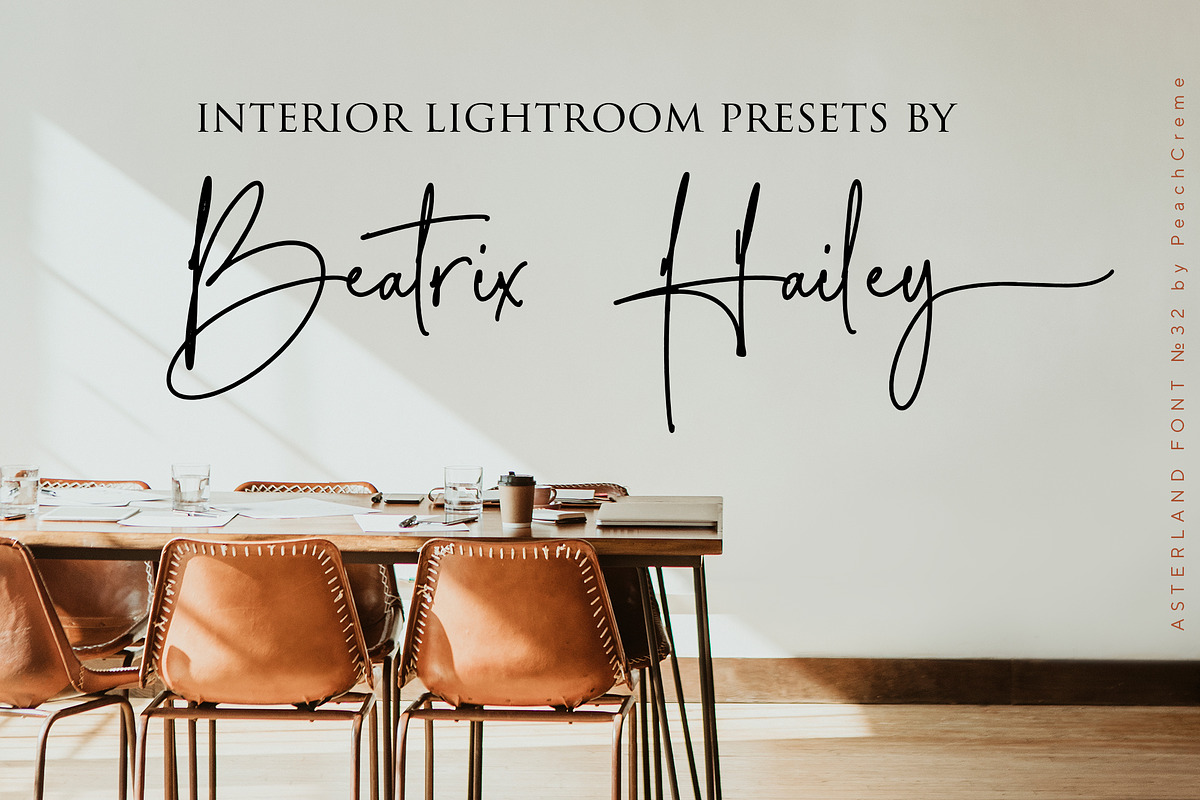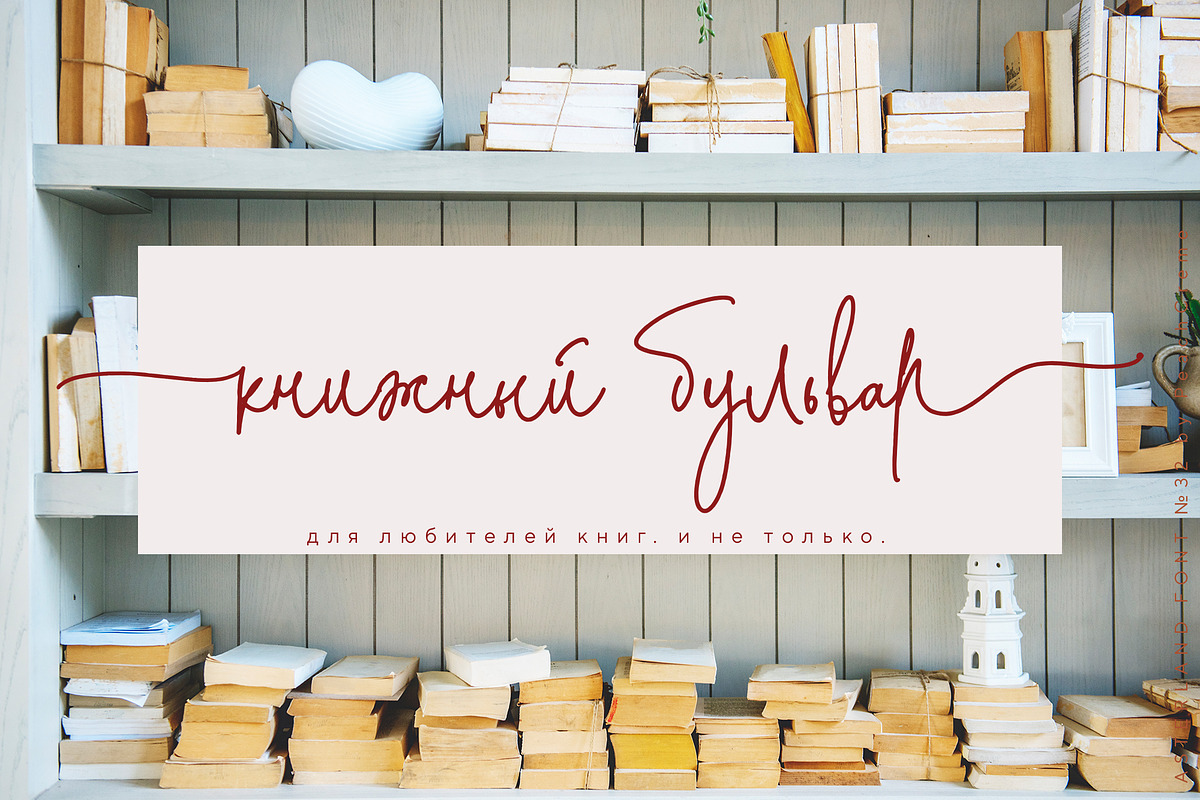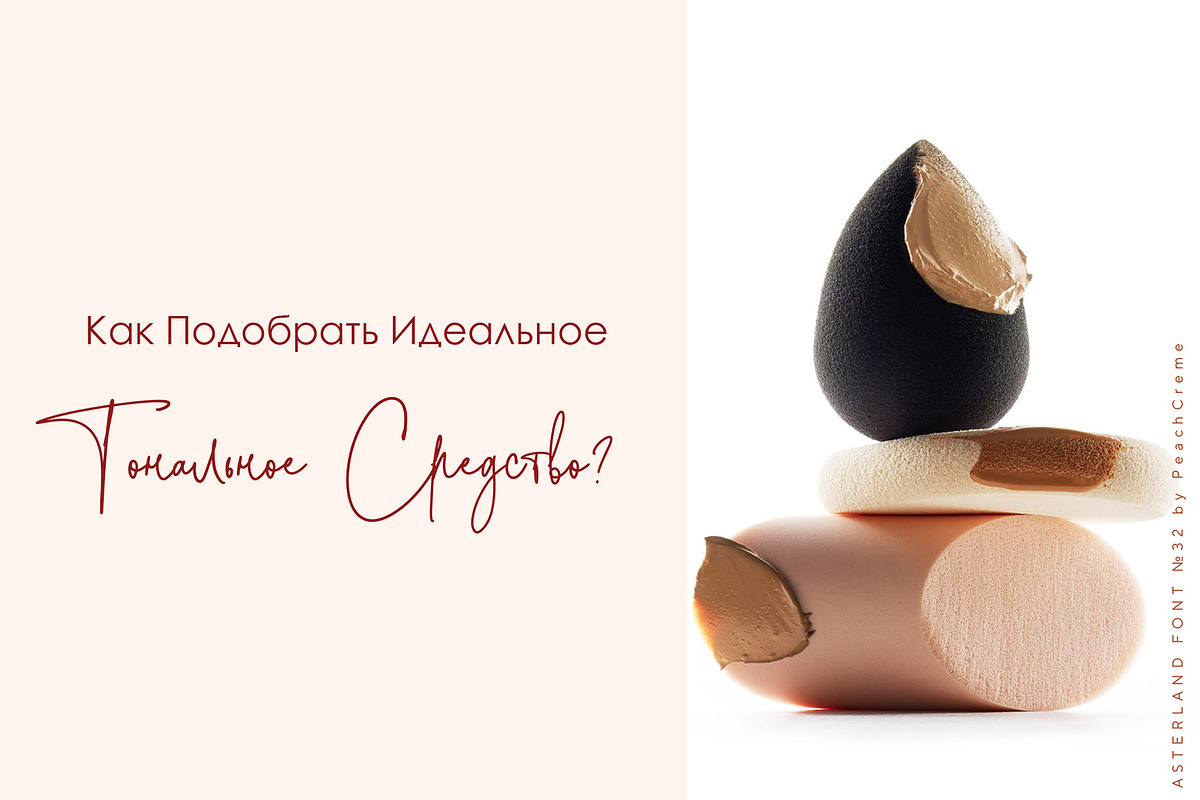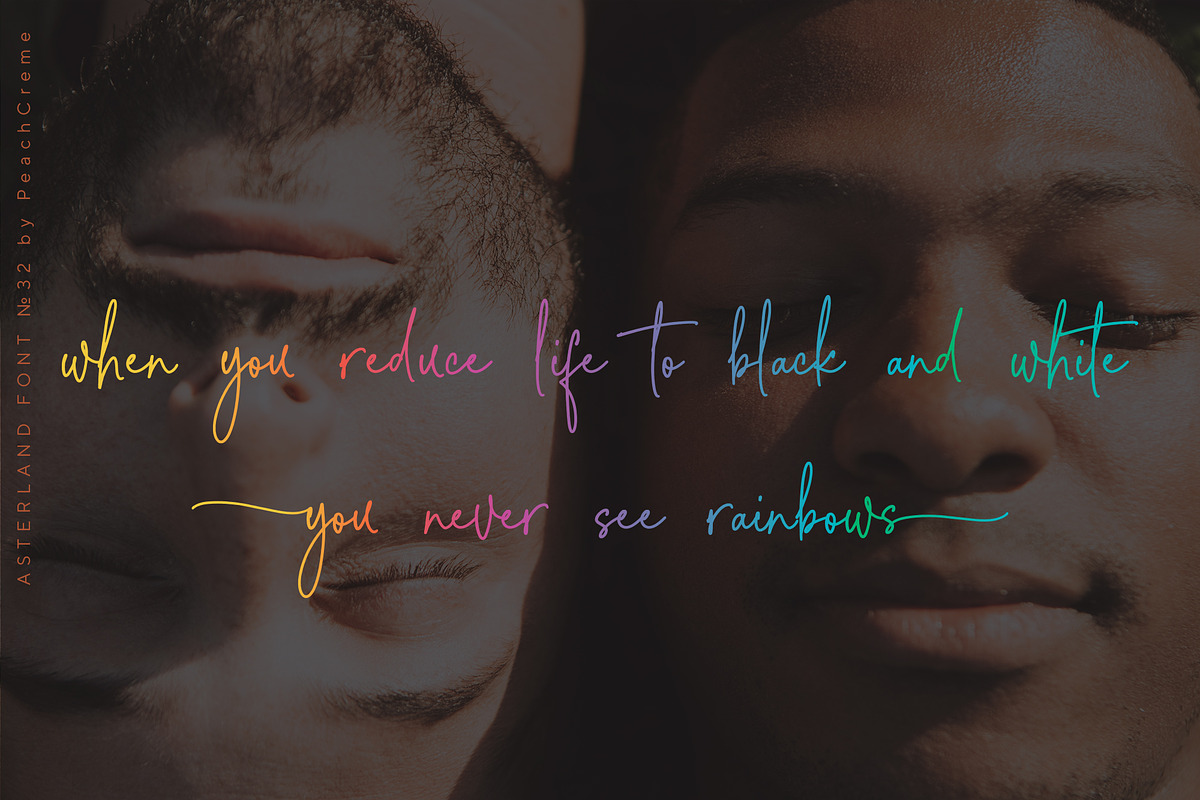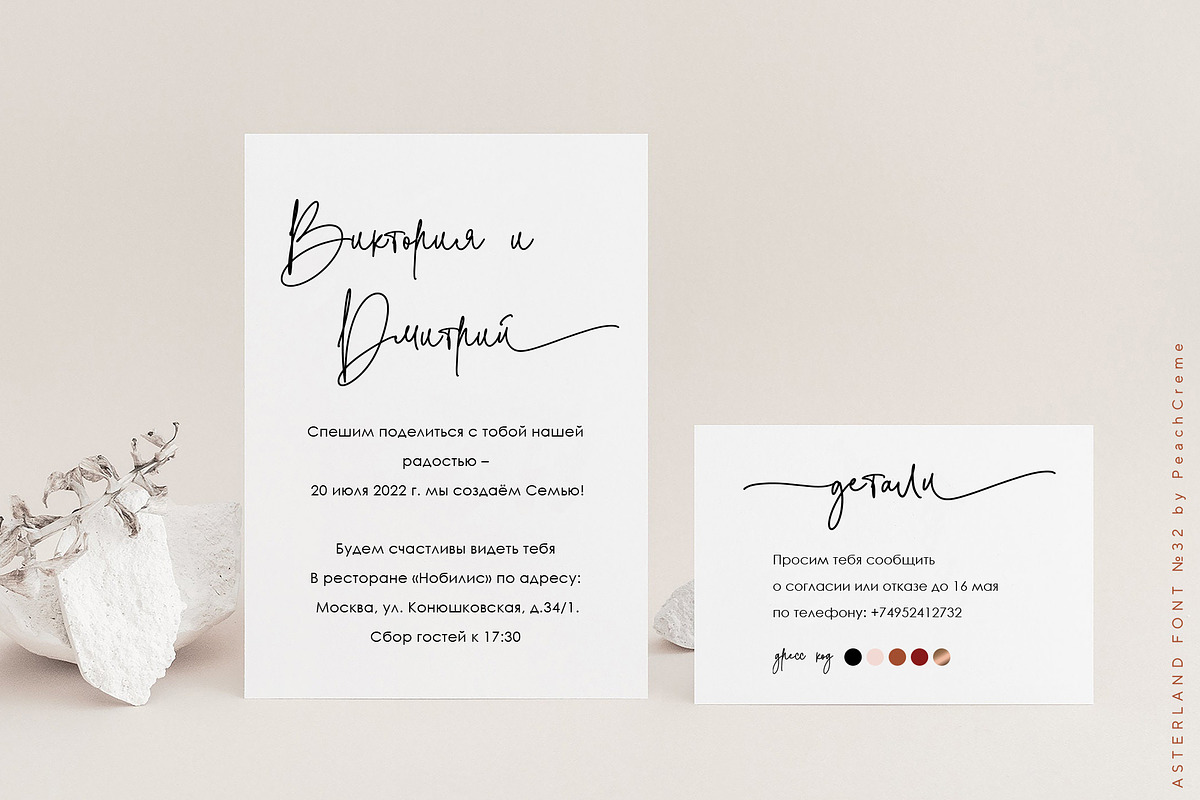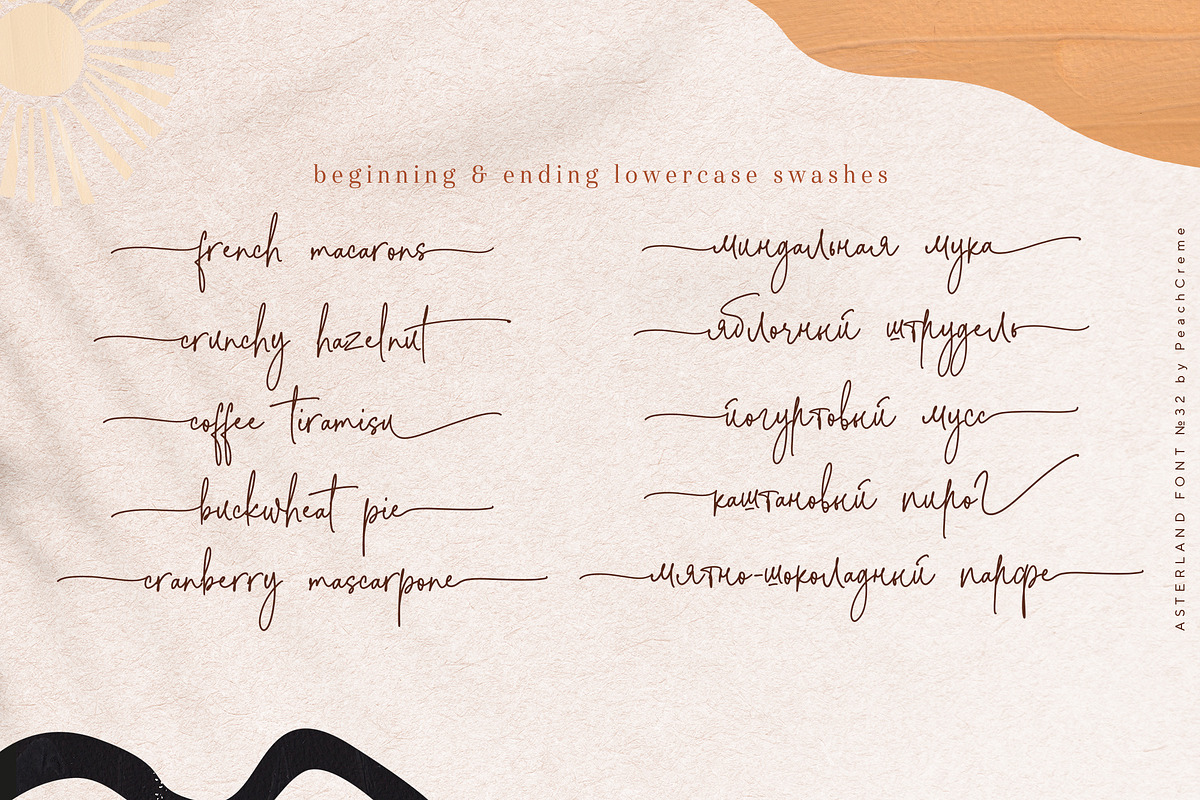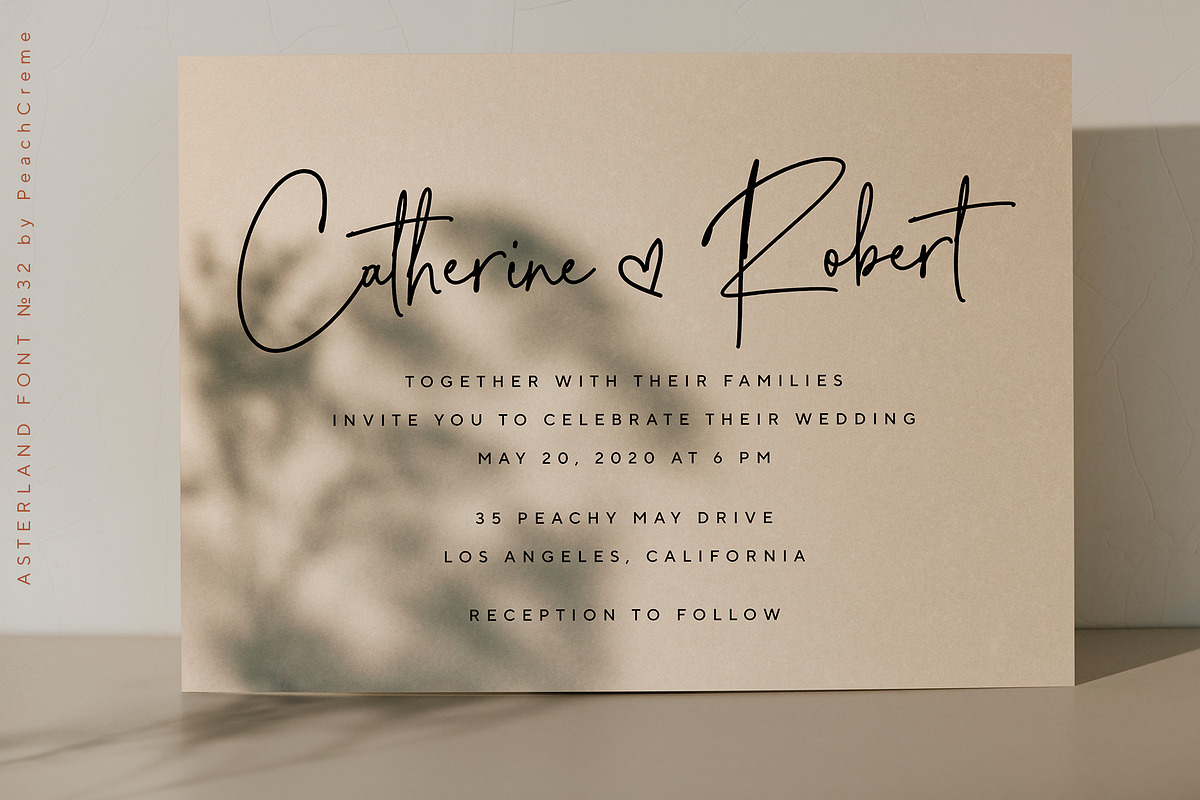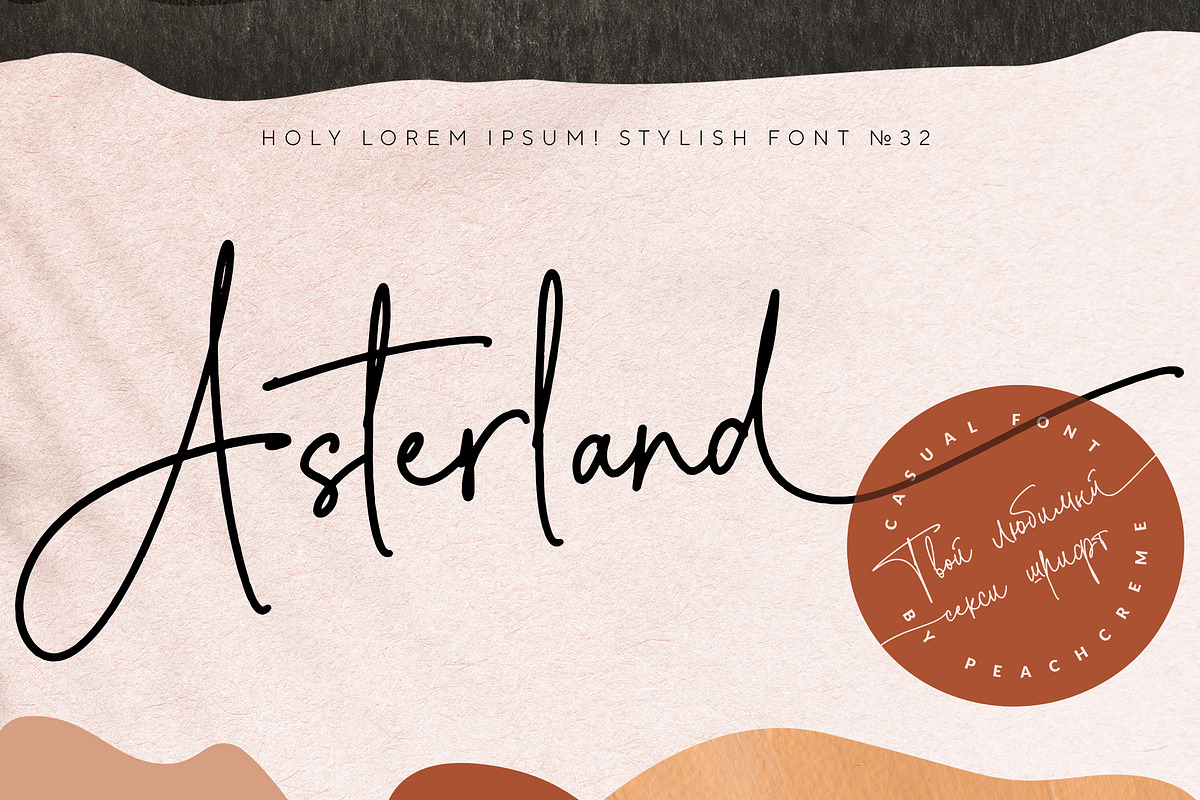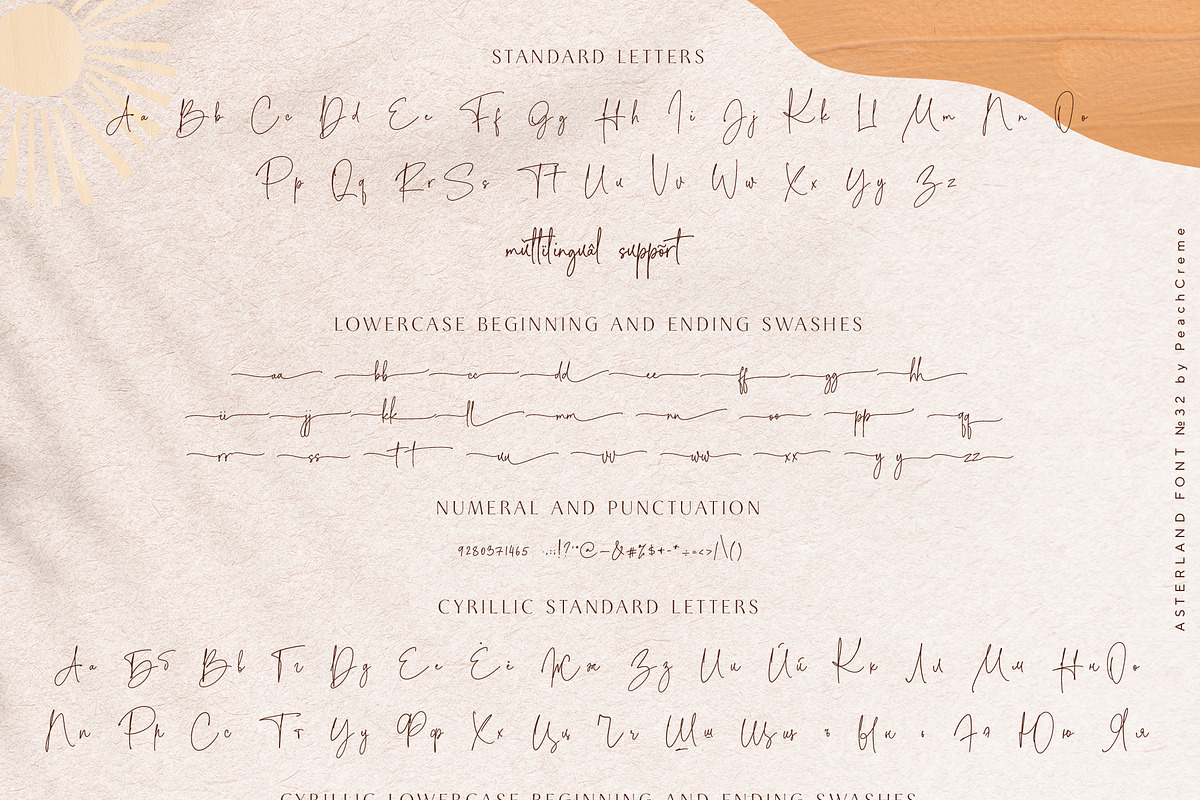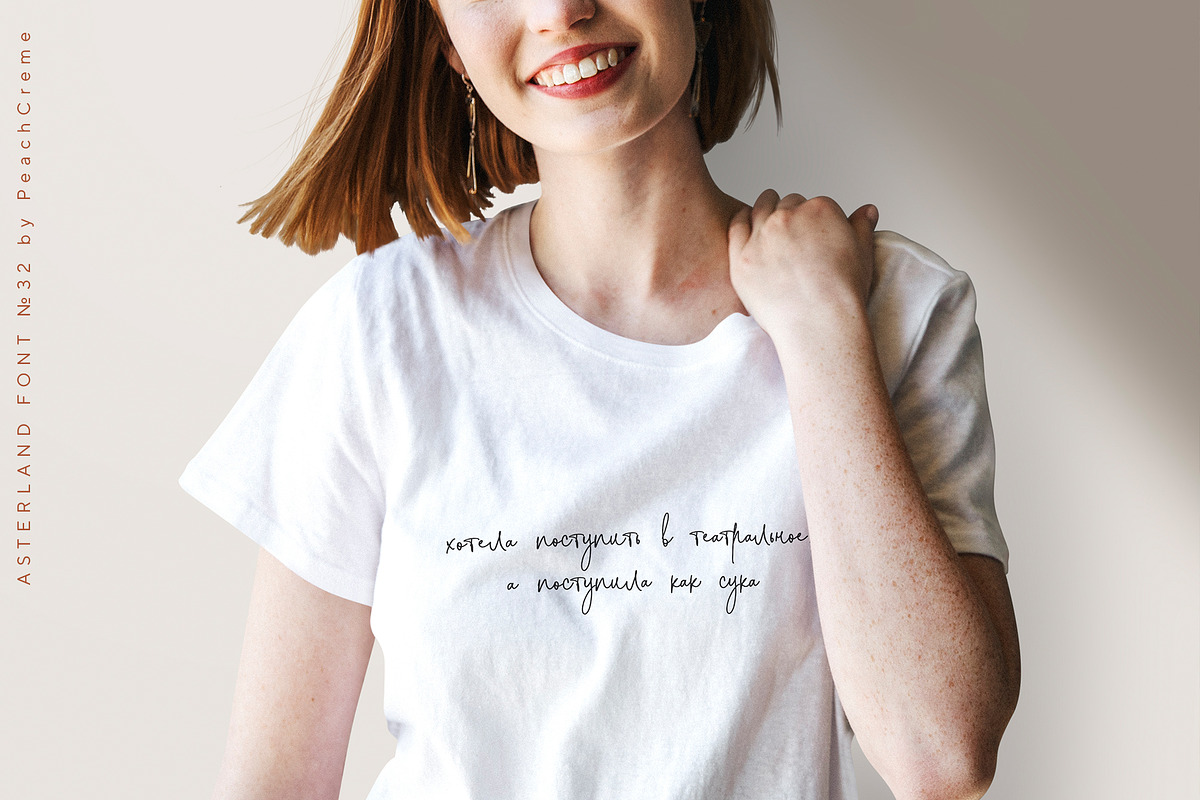
MODERN CALLIGRAPHY VOL.32
Asterland is a crème de la crème cyrillic modern calligraphy font . It is perfect for branding, wedding invites and cards.
"Asterland" includes full set of lovely uppercase and lowercase Cyrillic and English letters, multilingual symbols, numerals, punctuation and ligatures.Also it includes beginning and ending lowercase swashes. The font has smooth texture, so would be perfect for all types of printing techniques+you can do embroidery, laser cut, gold foil etc.